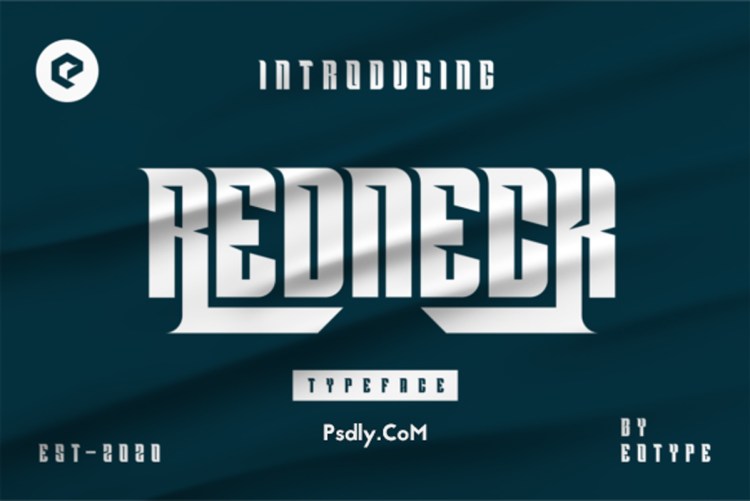
The Best Redneck Fonts Ideas. Pin about redneck font 36x added to favorites add to. Masterfully designed to become a true favorite, this font has the potential to bring each of your creative ideas to the.
Masterfully designed to become a true favorite, this font has the potential to bring each of your creative ideas to the highest level!. Redneck is the perfect font for all your fun designs. The font subfamily is regular.
Masterfully designed to become a true favorite, this font has the potential to bring each of your creative ideas to the highest level! Masterfully designed to become a true favorite, this font has the potential to bring each of your creative ideas to the highest level!. The fonts in use section features posts about fonts used in logos, films, tv shows, video games, books and more;